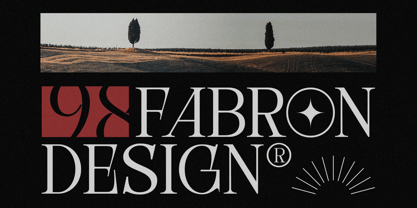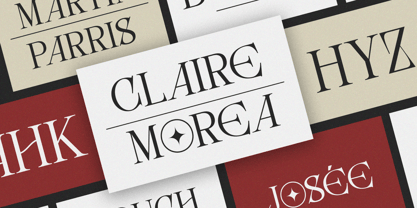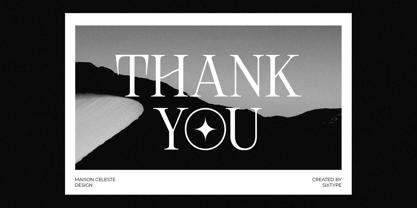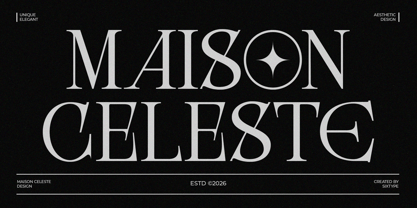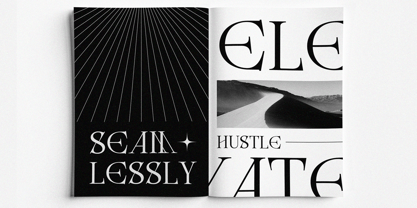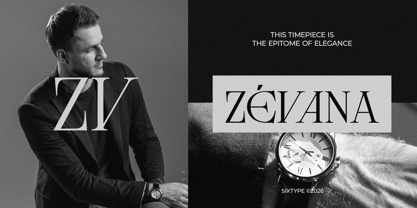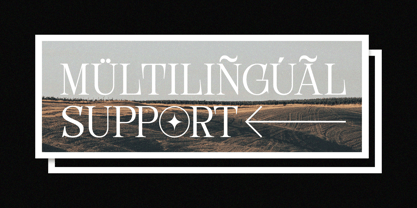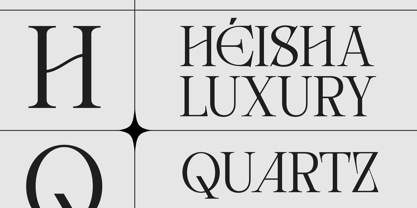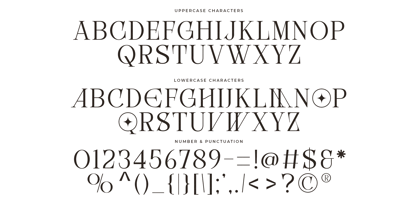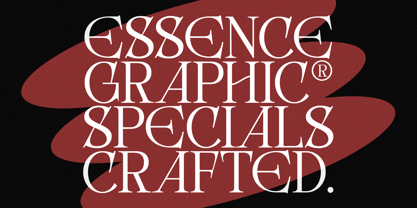
Maison Celeste
by Sixtype Foundry
The Maison Celeste Font Family and published by Sixtype Foundry. Maison Celeste contains 1 styles. More about this family
Maison Celeste is a refined modern serif typeface that embodies luxury, elegance, and high-end editorial design. With its high-contrast strokes, sharp serifs, and graceful curves, it seamlessly merges classic typographic tradition with contemporary sophistication. Distinctive features, including sculpted terminals and stylized letterforms, contribute to its unique personality, making it an excellent choice for premium branding, fashion magazines, jewelry campaigns, and upscale packaging. Maison Celeste offers a timeless visual language that is both artistic and authoritative, ideal for designers aiming to create a bold yet elegant statement in their projects.